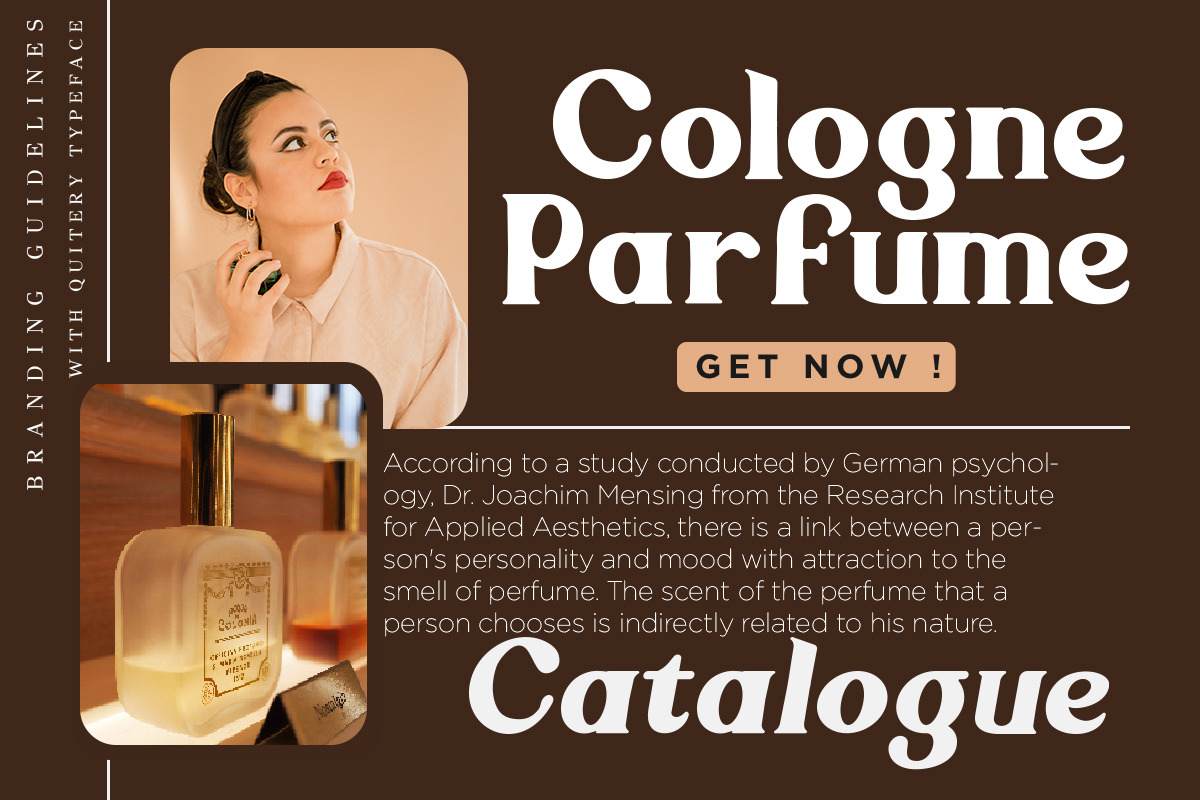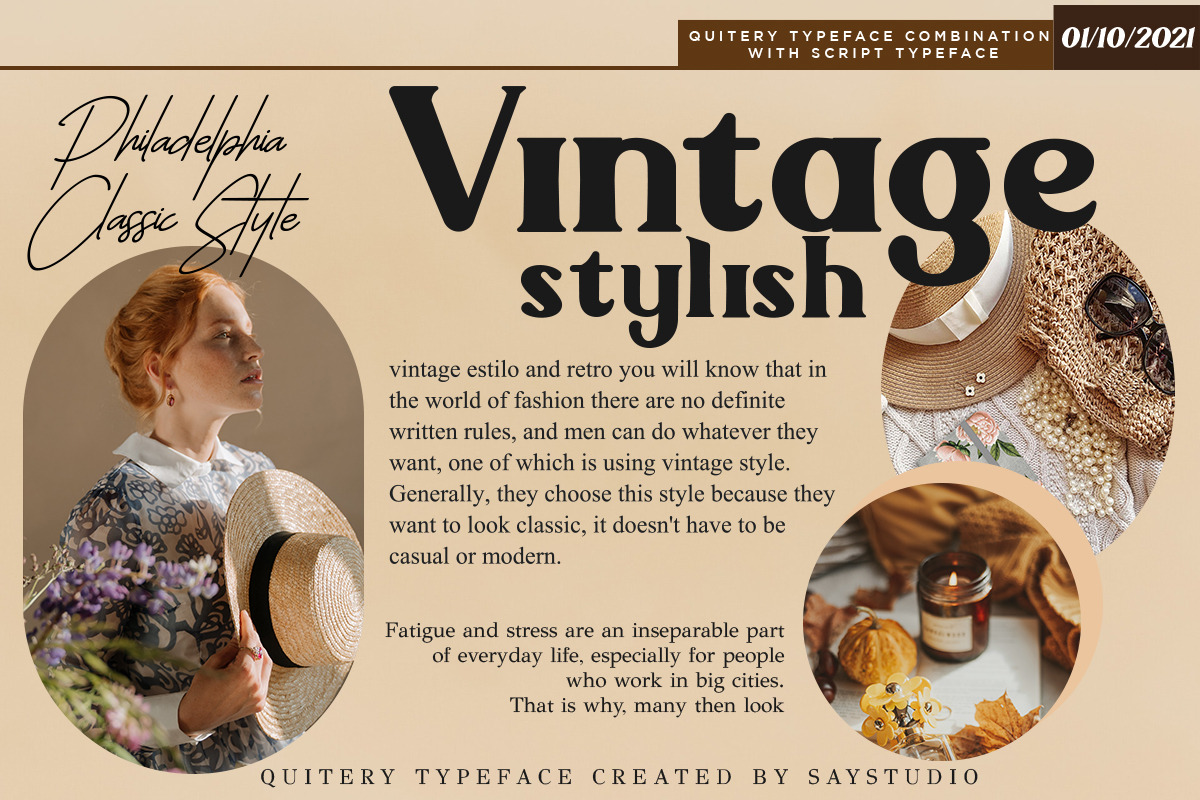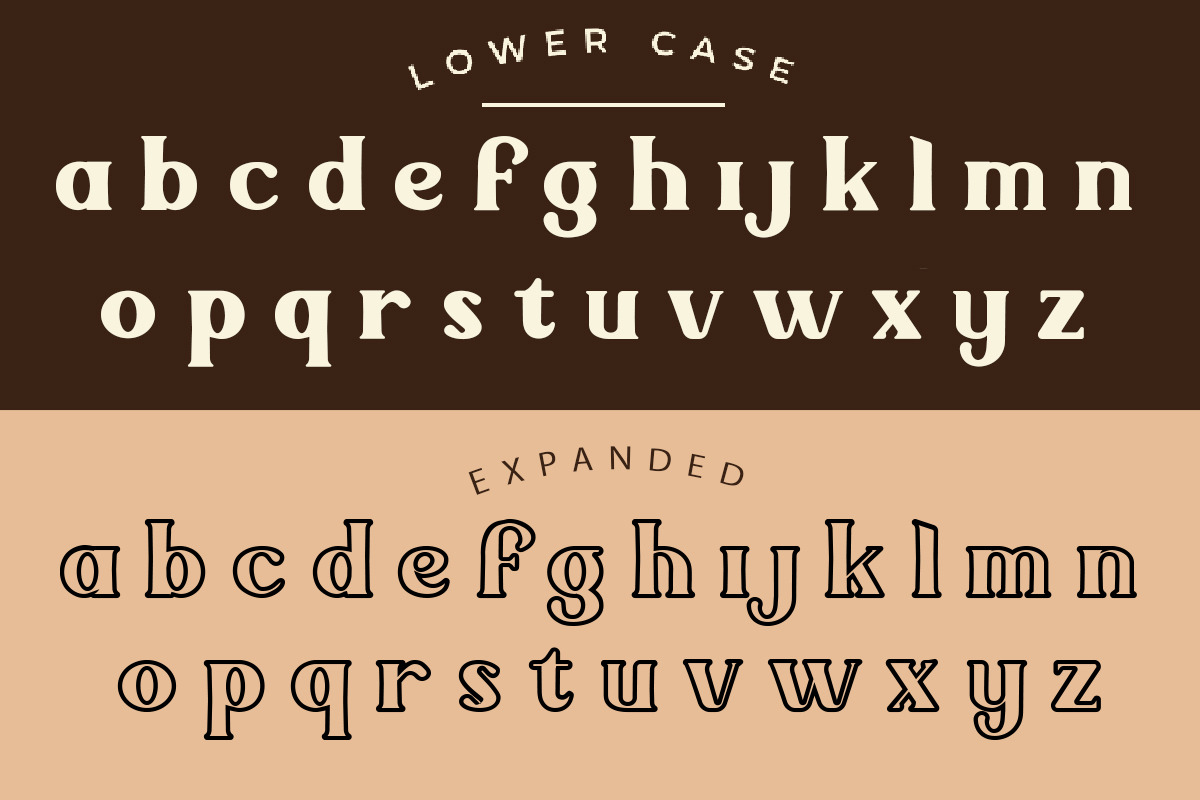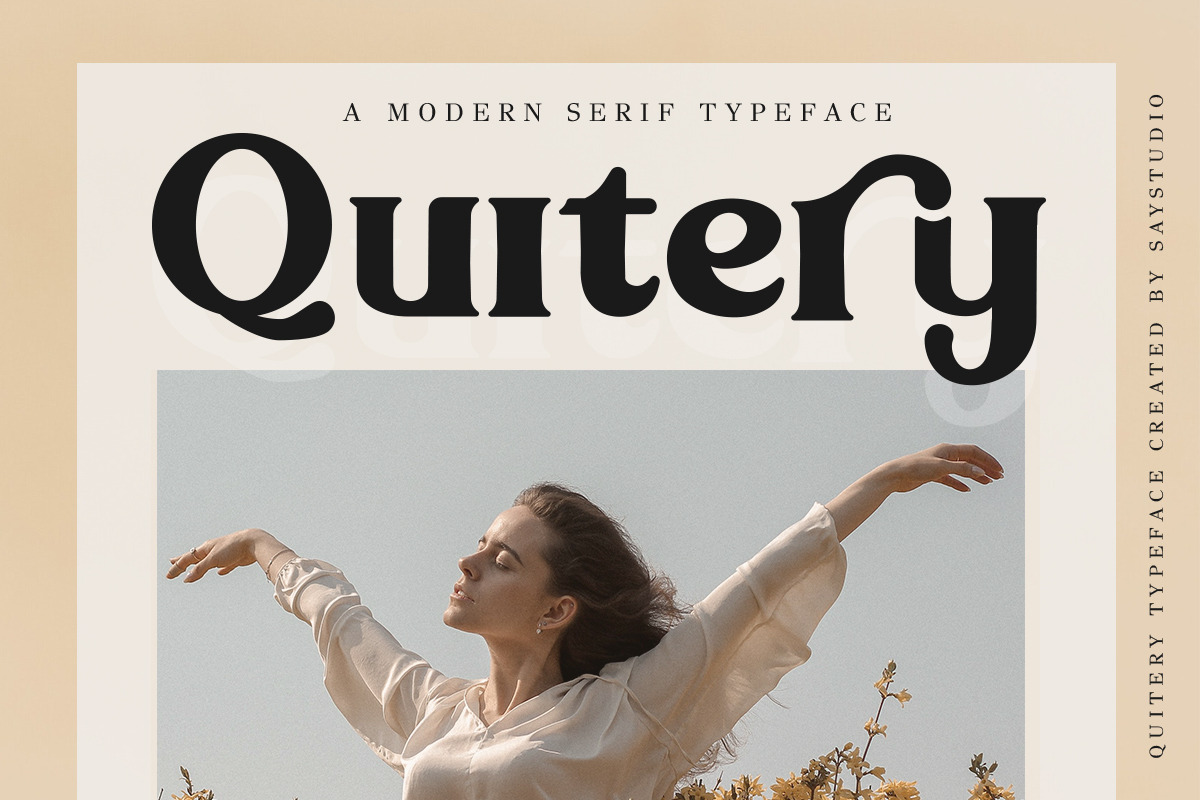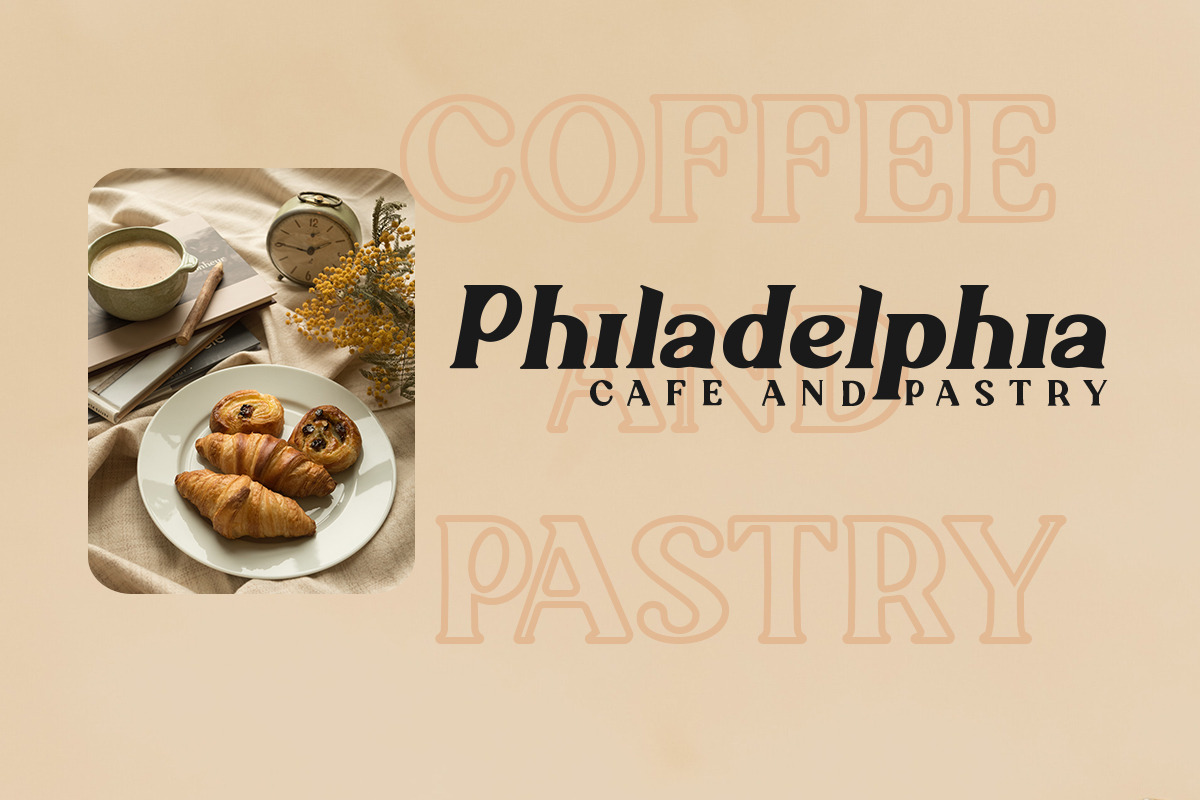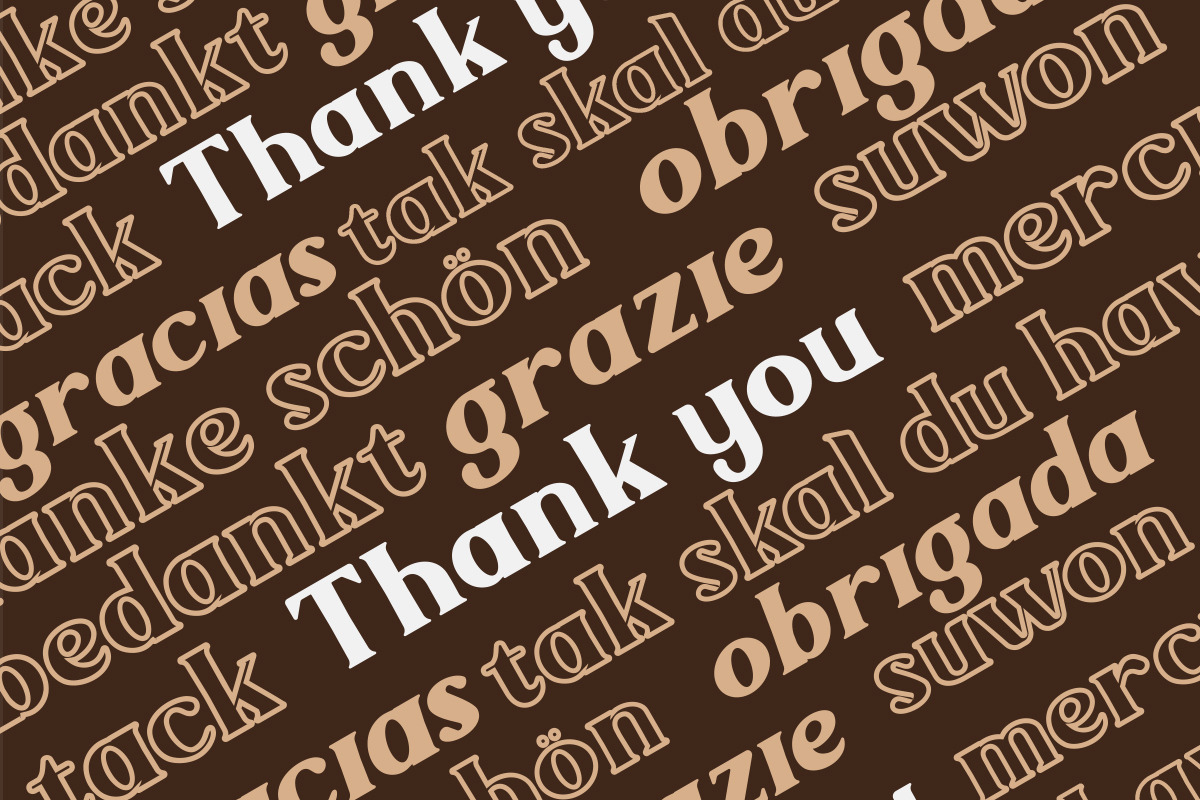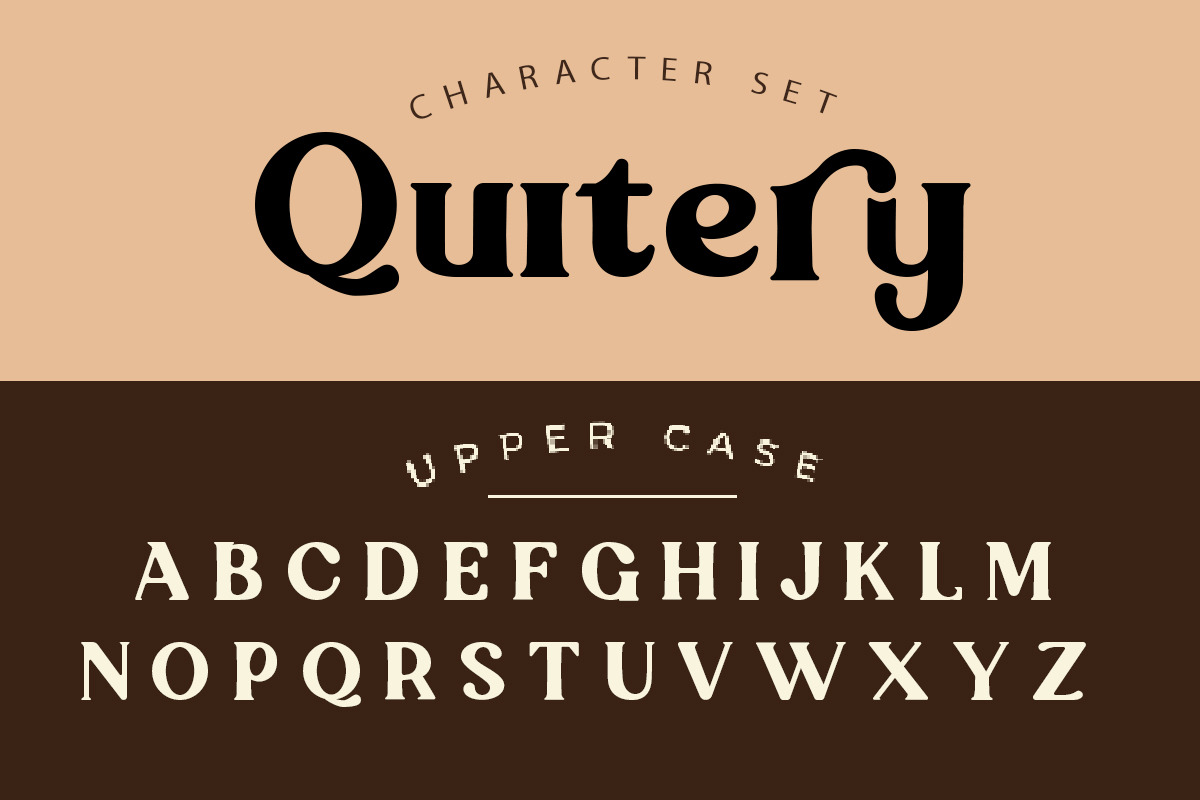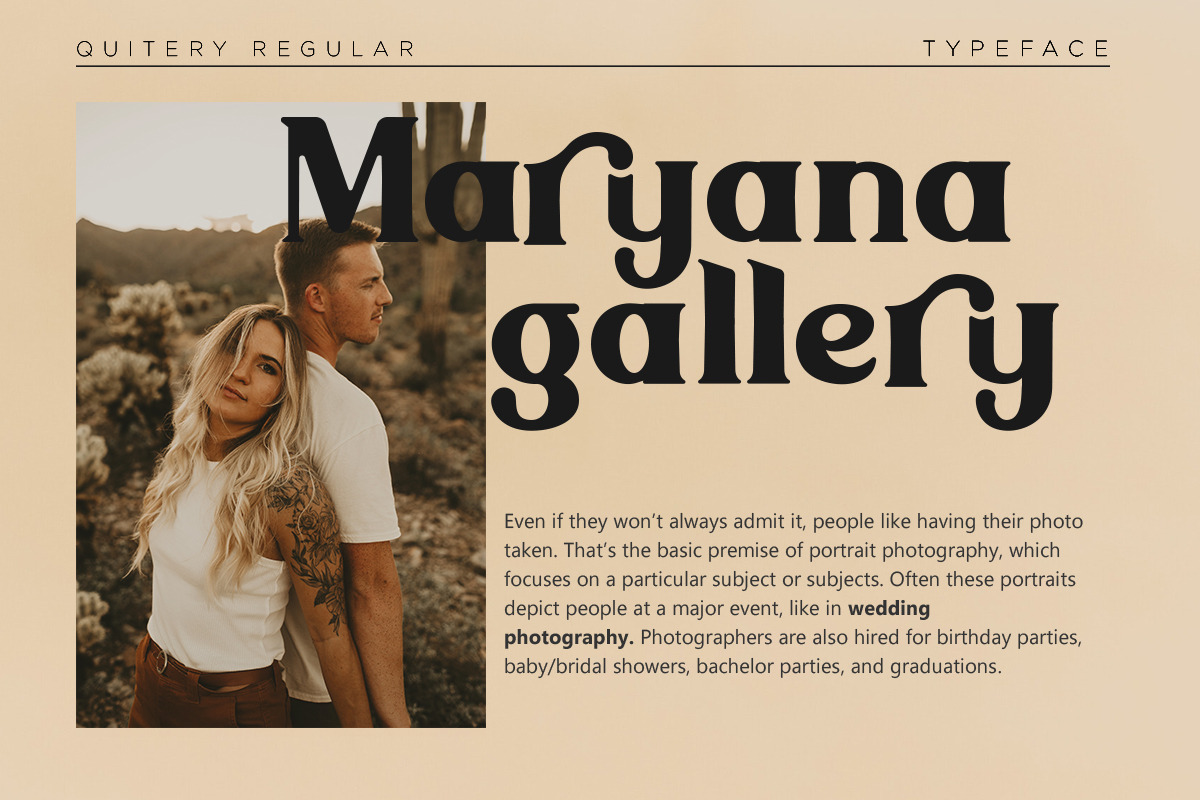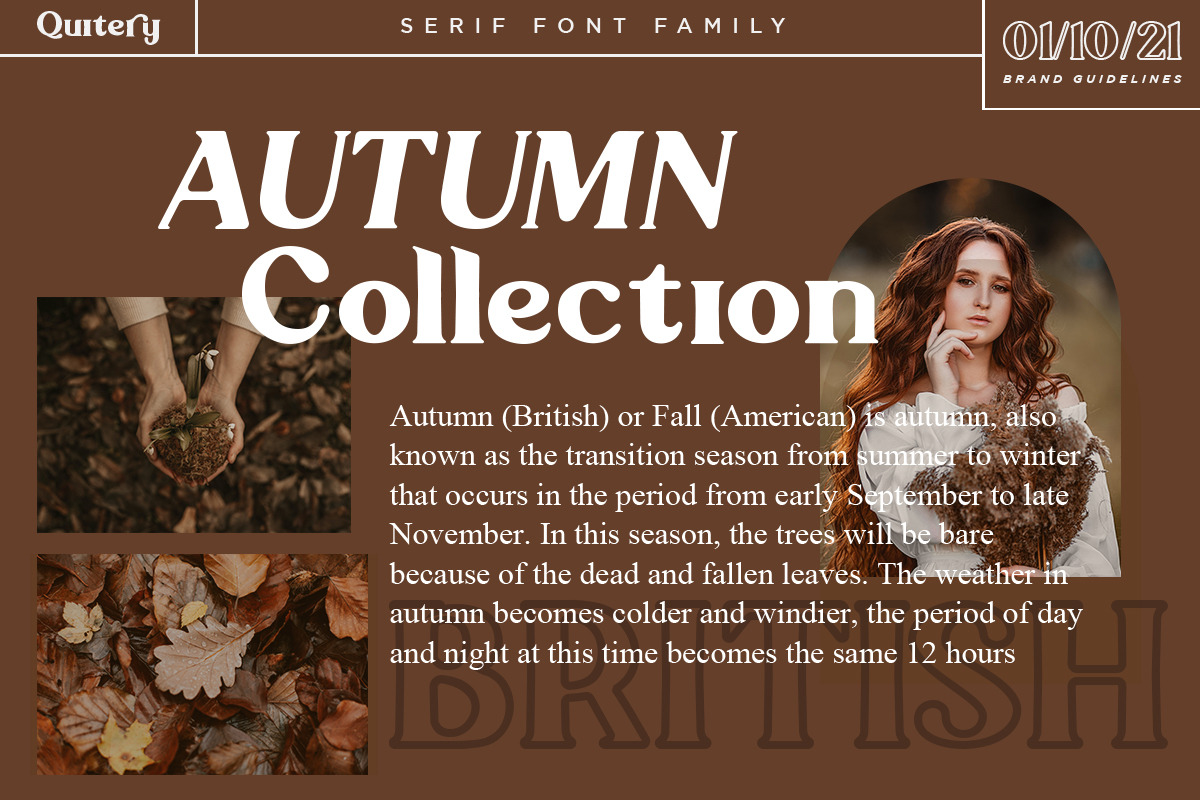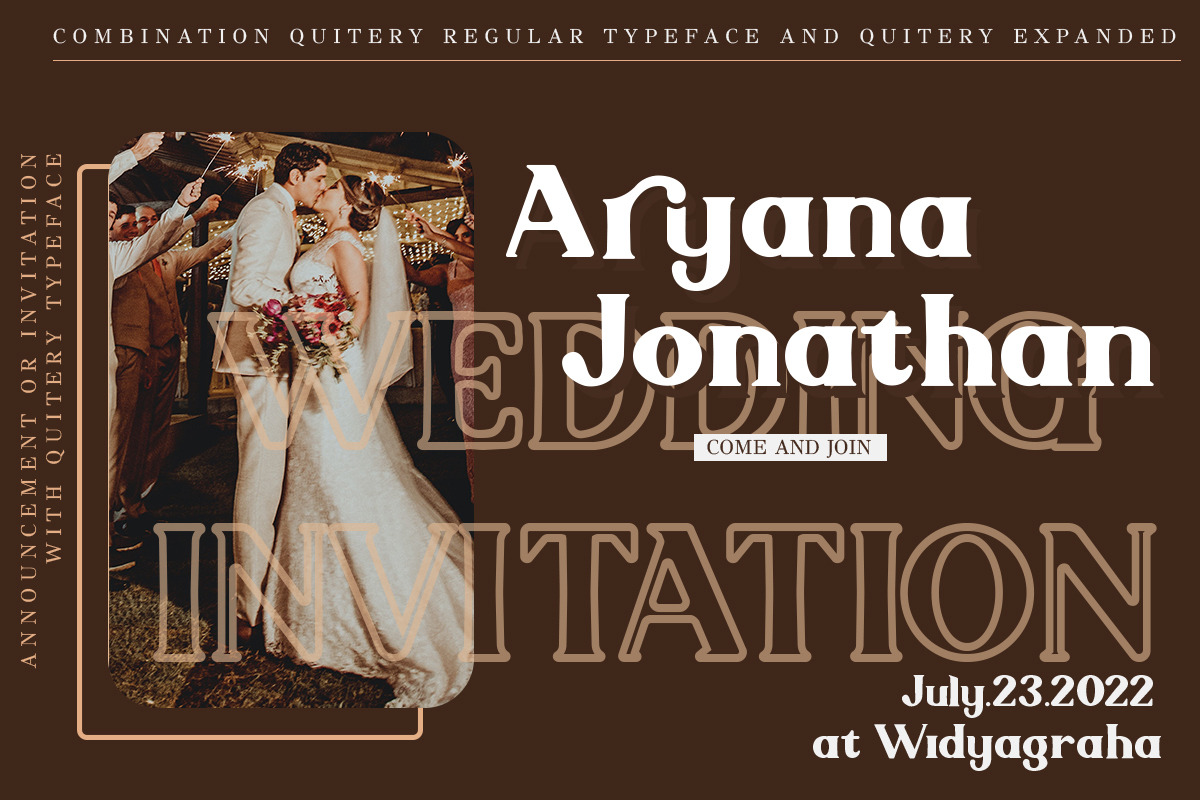
Quitery Serif Typeface Family
Introducing Quitery – a brand new serif
Modern font is a well-balanced contemporary font with a fancy, unique, and versatile vintage serif font that you can combine to get any variations and unique shapes easily just in seconds with stack it. It is a serif display font with moderate contrast that perfect for branding projects, logo, wedding designs, social media posts, advertisements, product packaging, product designs, label, photography, watermark, invitation, stationery, and any projects, it makes with a high level of legibility.
This download also includes a expanded or outline version of the serif, so you can layer text or add some flair to your logos and display type.
There are also alternates available for "G,O,R, a,b,d,g,k,i,o,p,q " that give each ligatures " ry "
using Quitery for headings, branding, wedding invitation, magazine cover and other bigger design elements :)
Quitery Regular (uppercase & lowercase) Quitery Italic (uppercase & lowercase) Quitery Expanded or Outline Style(uppercase & lowercase)